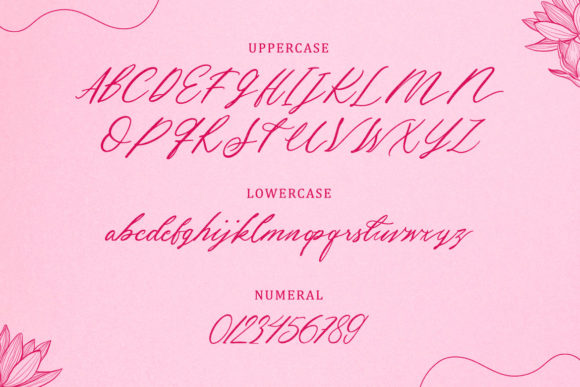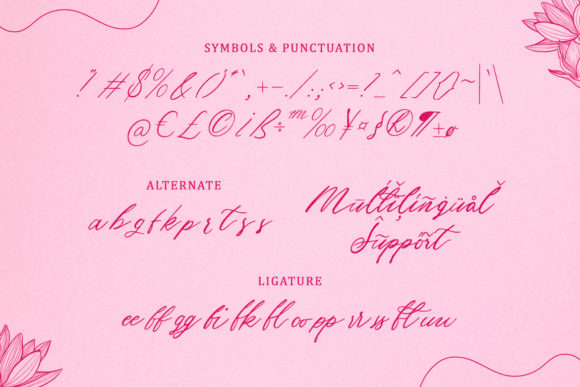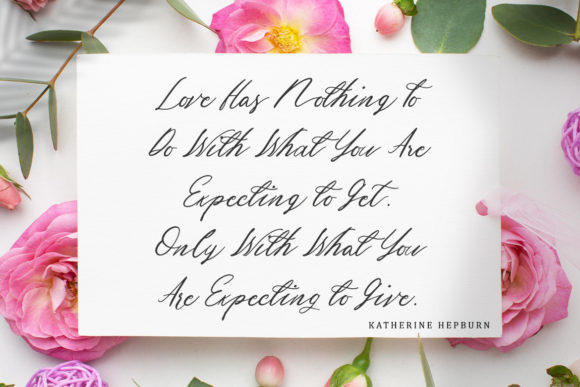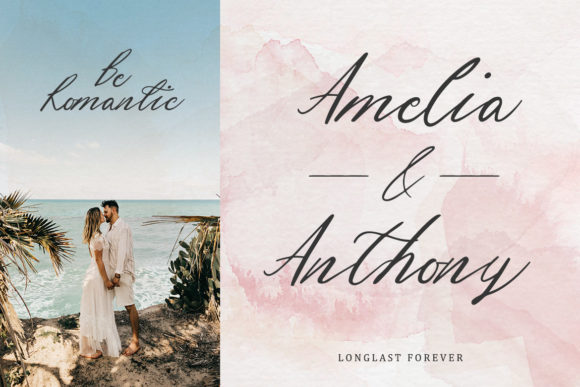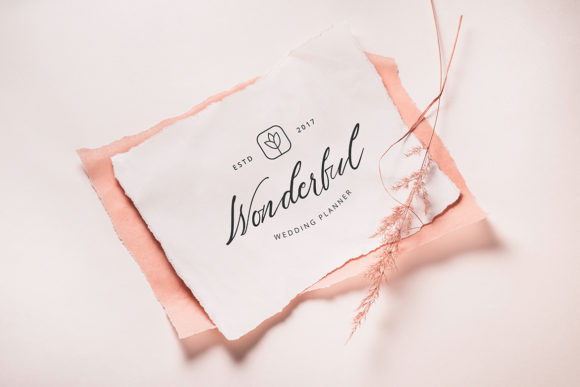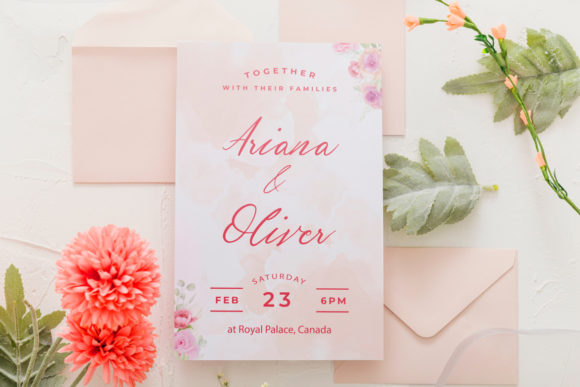
Introduction to Hey Jane Font
Have you ever stared at a blank page, struggling to find the perfect font to bring your creative project to life? You’ve scoured the internet, scrolled through design resources, and still, nothing seems quite right. That’s where the beauty of the Hey Jane Font comes in – a stunning handwritten font that’s as elegant as it is readable.
For designers, the Hey Jane Font is a valuable resource that can help take your designs from good to great. Its unique, handwritten style adds a touch of sophistication and personality to any project, making it a must-have in your design arsenal.
Key Features of Hey Jane Font
- Unique, modern script font with a transparent background, perfect for adding a personal touch to designs.
- Includes 6 different font styles, each with its own unique characteristics and flair.
- Perfect for designers and artists working on creative projects, including digital art, print materials, and more.
Honest Review: Hey Jane Font
As a designer, I’m always on the lookout for high-quality design resources to elevate my creative projects. I recently had the chance to work with the Hey Jane Font, and I’m excited to share my honest review.
- Stylish and Elegant Design: The Hey Jane Font has a beautiful, sophisticated design that’s perfect for high-end projects.
- Limited Character Set: The font’s character set is limited, which may not be suitable for projects that require a wide range of characters.
- No Bold or Italic Options: I found that the font doesn’t offer bold or italic options, which can limit its versatility.
Overall, I’m impressed with the Hey Jane Font’s stylish design and free download option. However, its limitations may not make it the best choice for all projects. If you’re looking for a high-quality, elegant font for your creative projects, the Hey Jane Font is definitely worth considering.
To get the most out of the Hey Jane Font, try experimenting with different text sizes, styles, and colors. You can also use the font in combination with other design elements, such as images and graphics, to create a unique and eye-catching design.
The Hey Jane Font is suitable for a wide range of creative projects, including business cards, brochures, posters, and social media graphics. Its high-quality design and transparent background make it an ideal choice for designers looking for a versatile and professional font.